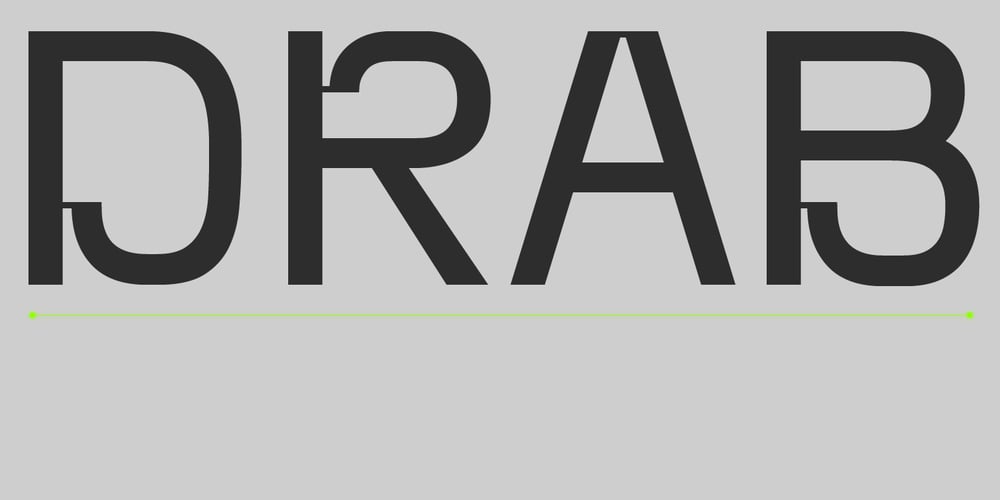
Drab
Drab font
Drab Font Family was designed by Victor Pesotsky and published by Pesotsky Victor. Drab contains 1 styles and family package options. Drab is a neutral grotesque, but with decorative elements. Suitable for texts and titles. When you do not need a strong accidental but a boring set, Drab is also not suitable.Drab supportsBasic Latin, Cyrillic and more than 100 languages all together.The font was designed by Viktor Pesotsky.